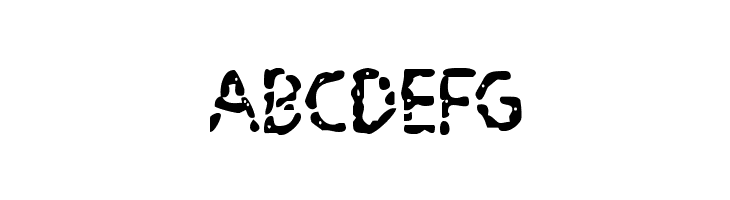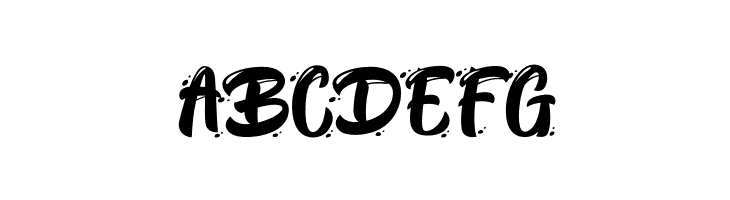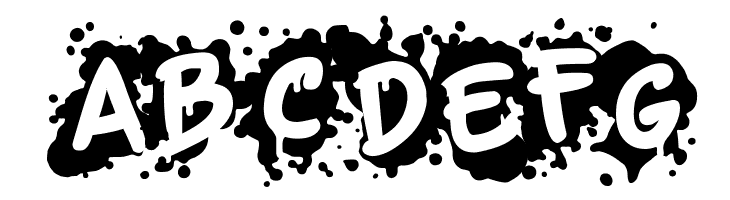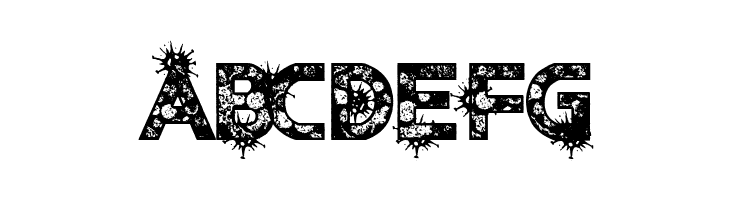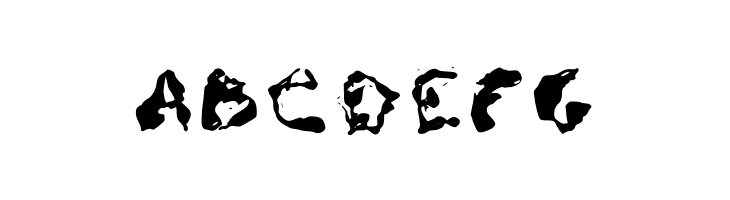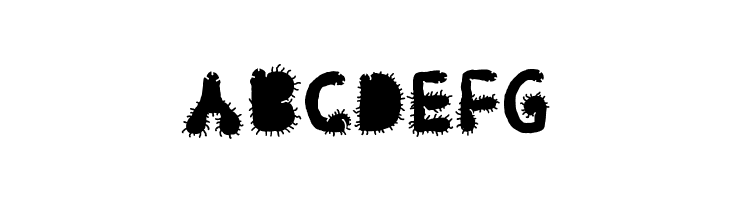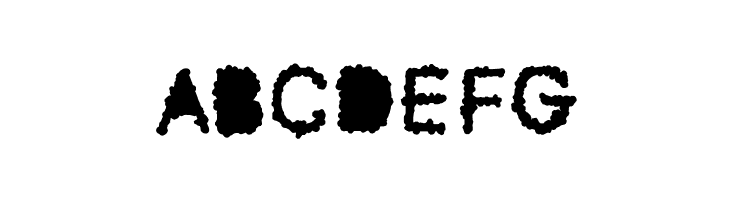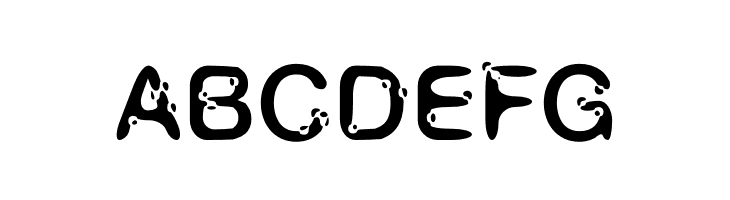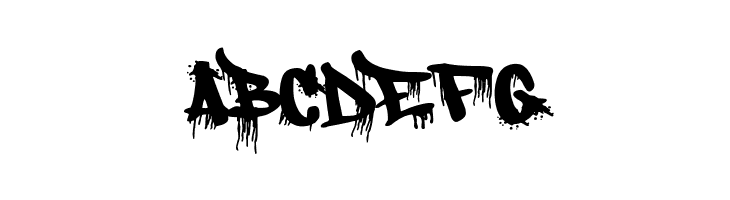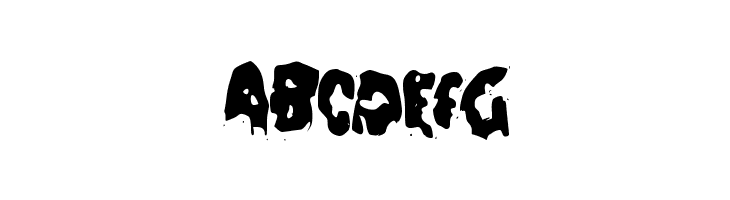
A bold, expanded, and italicized decorative font with a splattered appearance.
A bold, horror-themed font with a dripping, splattered design.
A dramatic, splatter-style font with irregular, fluid characters.
A blood-splattered, semi-italic font with a dramatic, horror-themed style.
A bold, splatter-themed font with an eerie, artistic flair.
A bold, chaotic font with a dripping, splattered appearance, perfect for horror themes.
A bold, irregular font with a dripping, splattered appearance, perfect for horror themes.
A bold, splattered font with a chaotic and eerie style.
A bold, distressed font with a gritty, urban style and splatter-like details.
A bold, expressive handwritten font with playful splatter embellishments.
A bold, graffiti-inspired font with splatter effects for a dynamic look.
A bold, textured font with a distressed, splattered effect for a rugged, artistic look.
A bold, distressed font with a contagion-inspired design, featuring intricate splatter details.
A chaotic, ink-splattered font with irregular, jagged characters.
A bold, chaotic font with brush-like strokes and splattered ink effects.
A bold, playful font with an organic, splattered texture.
A bold, textured font with an organic, splattered appearance.
A playful, splatter-themed font with bold, rounded characters.
A bold, graffiti-inspired font with drips and splatters for an edgy, urban look.
An irregular, bold font with an organic, ink-splatter appearance.
A bold, playful font with an irregular, splattered texture.
A decorative font with an abstract, splattered ink style.
A chaotic, splatter-inspired decorative font with irregular, jagged edges.
A bold, abstract font with irregular, splattered letterforms.
A grungy, distressed font with splattered ink effects and dynamic strokes.
A rugged, distressed font with an ink-splatter appearance.
A bold, splattered font with a dynamic, grunge-like texture.
A bold, playful font with an ink-splatter effect and hand-drawn style.
A chaotic, splatter-like decorative font with irregular, dynamic forms.
A bold, distressed font with a splattered, grunge texture.
A bold, chaotic font with a splattered, organic texture.
A chaotic, textured font with an organic, splattered appearance.
A bold, distressed font with a gritty, splattered effect.
A bold, distressed font with splattered, grunge-style characters.
A distressed, grunge-style font with a splattered, worn appearance.